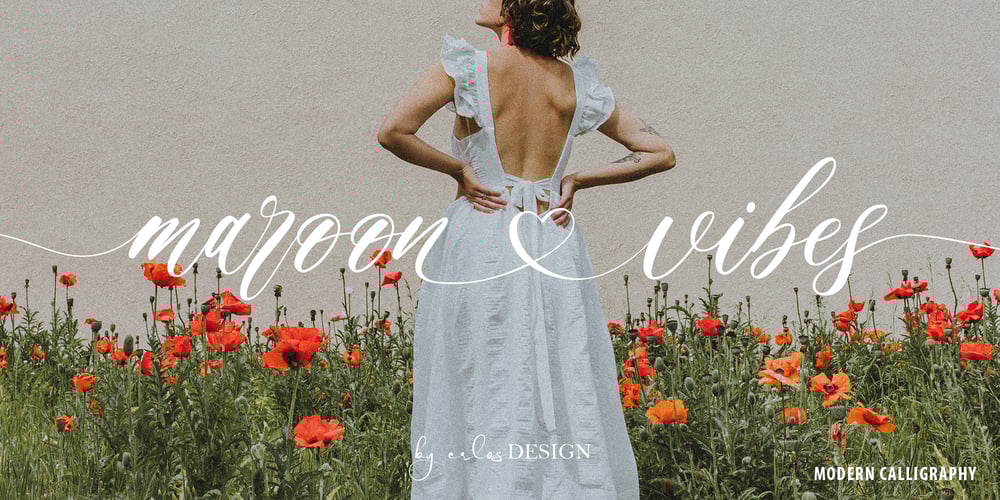
Maroon Vibes
Maroon Vibes font
Maroon Vibes Font Family was designed by Erlangga Suherman and published by ErlosDesign. Maroon Vibes contains 1 styles and family package options. Rafflesia – Modern Calligraphy by erlosDESIGNRafflesia is a delicate, elegant and flowing modern calligraphy font. It has beautiful and well balanced characters and as a result, it matches a wide pool of designs. Rafflesia features a varying baseline, smooth lines, gorgeous glyphs and connecting heart swashes. Add it to your most creative ideas and notice how it makes them come alive!